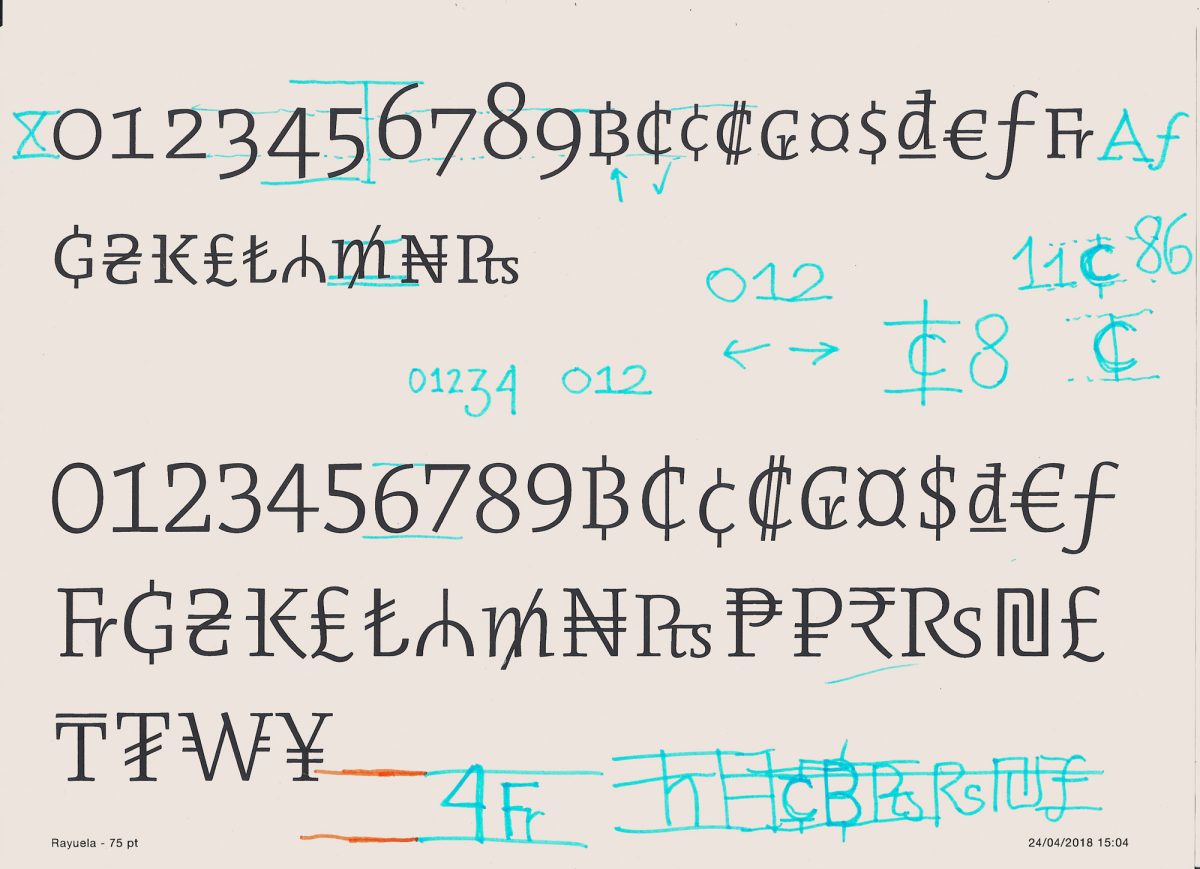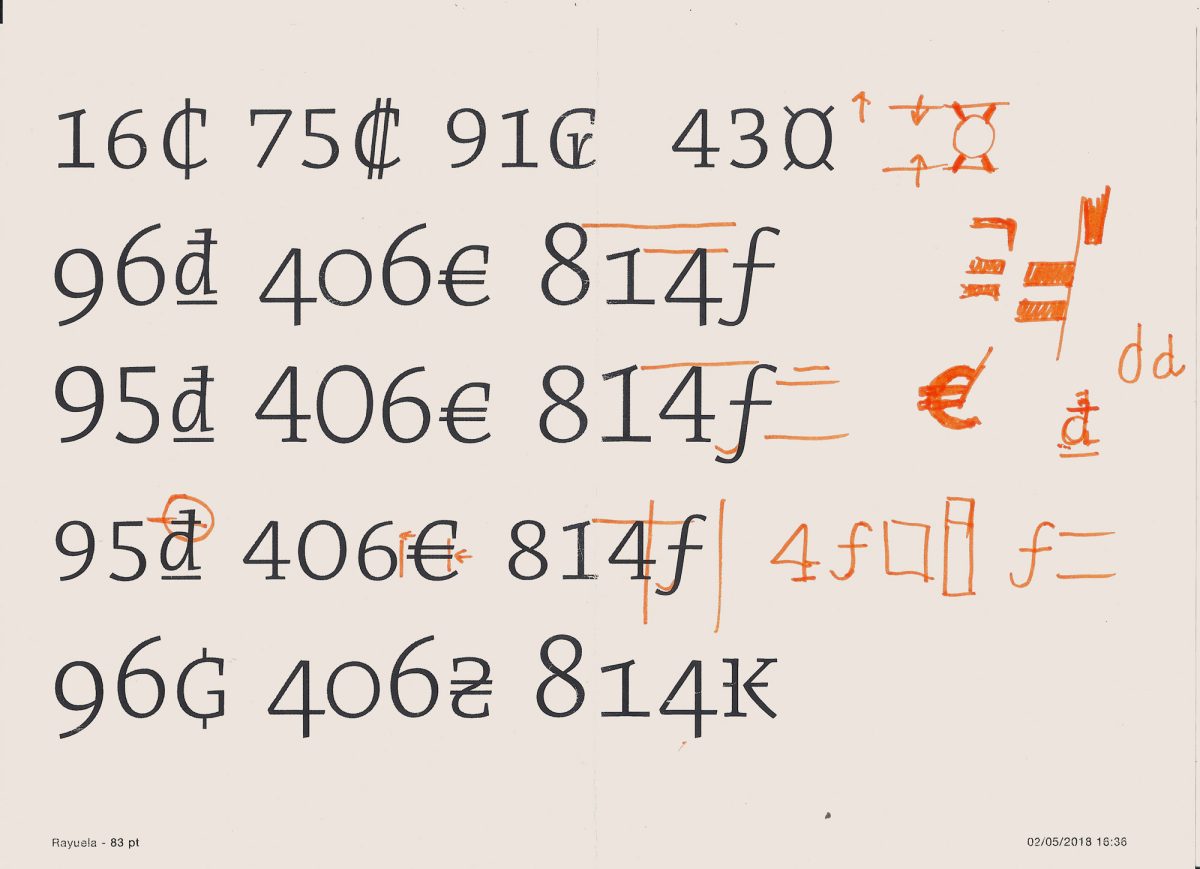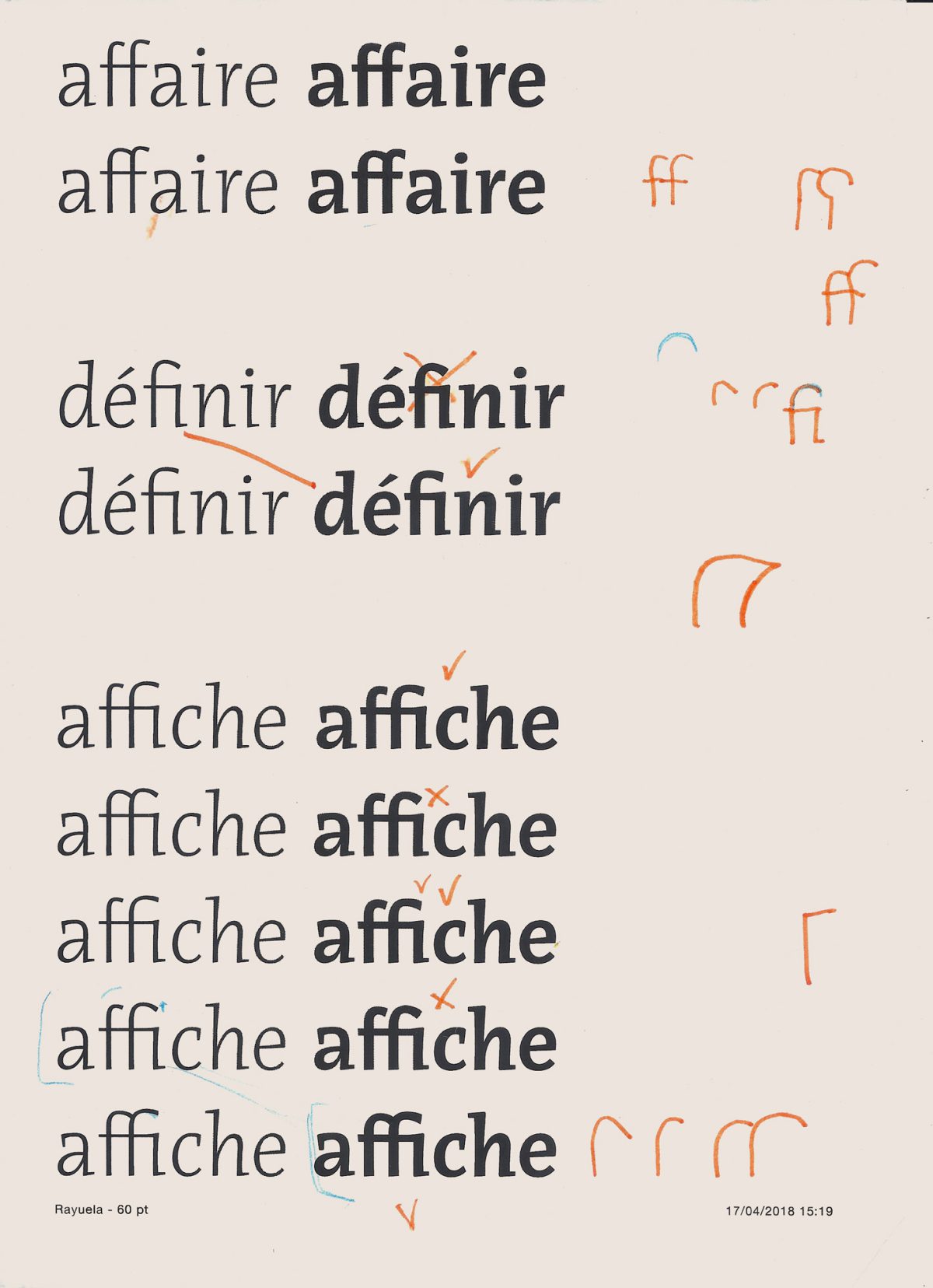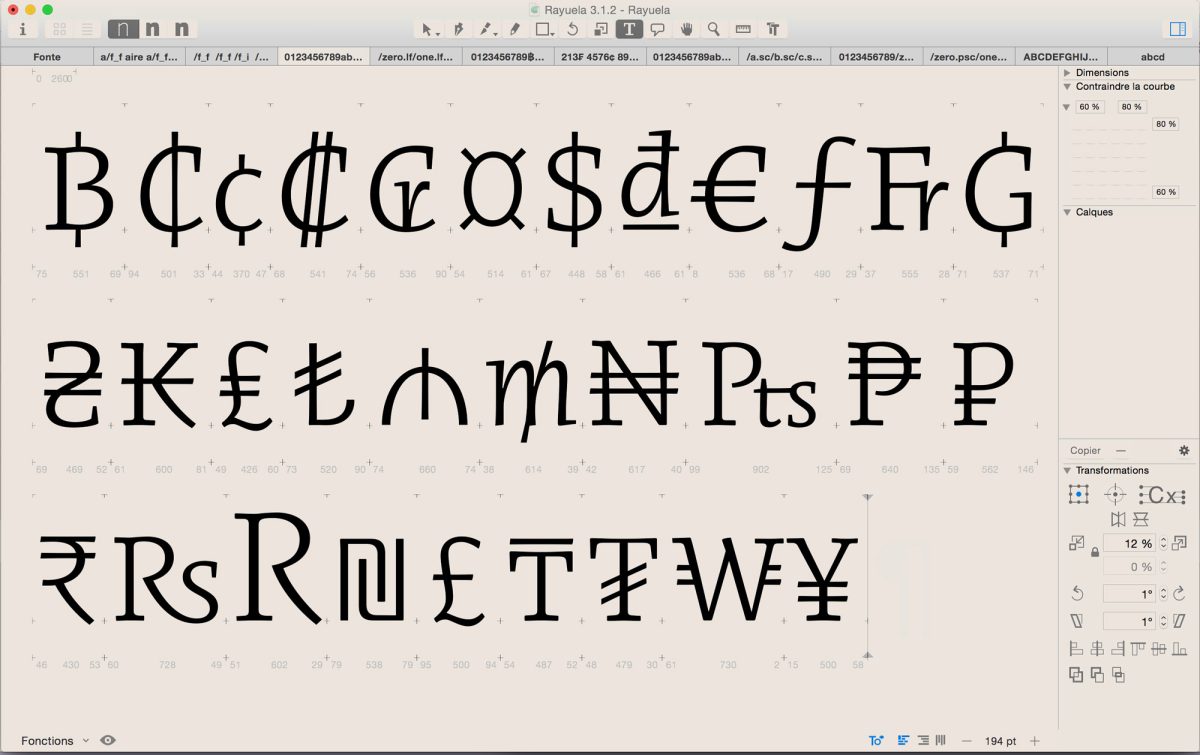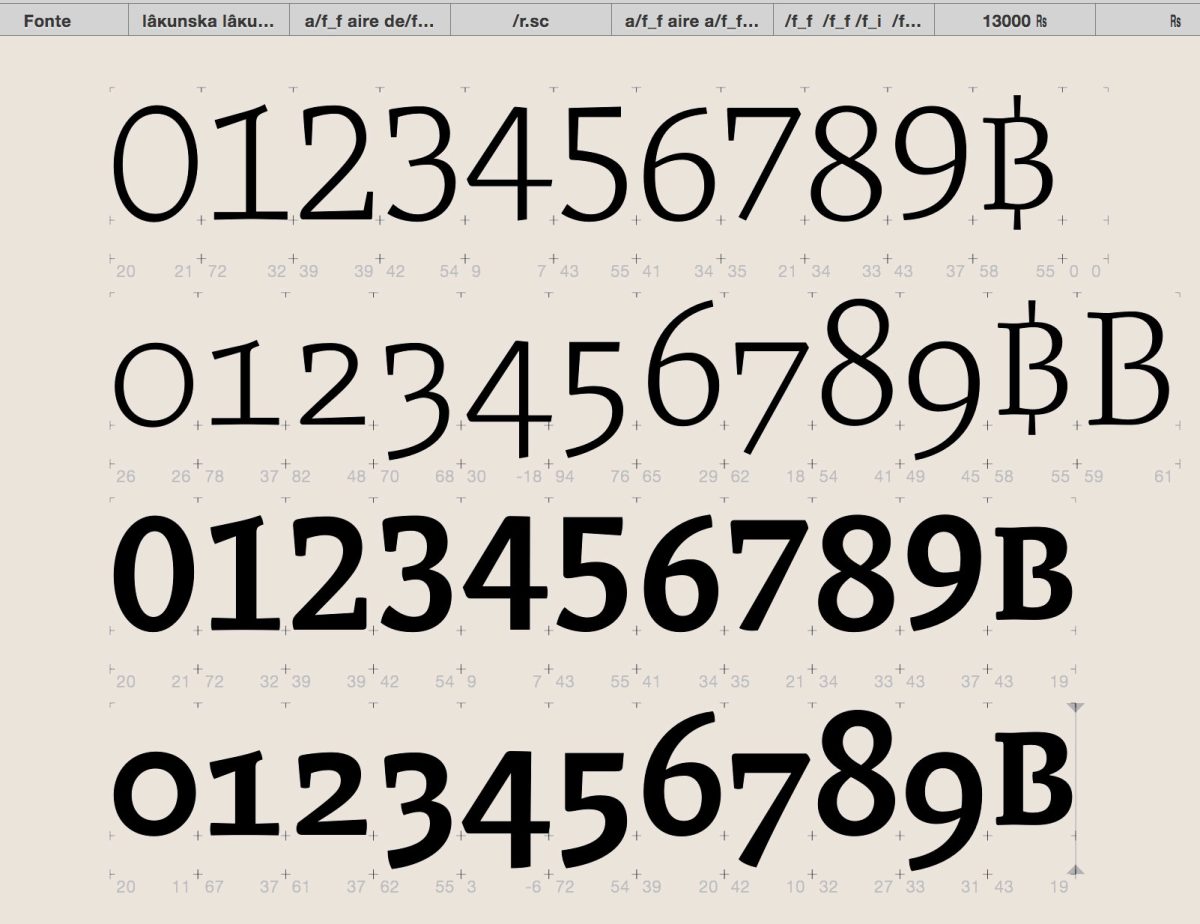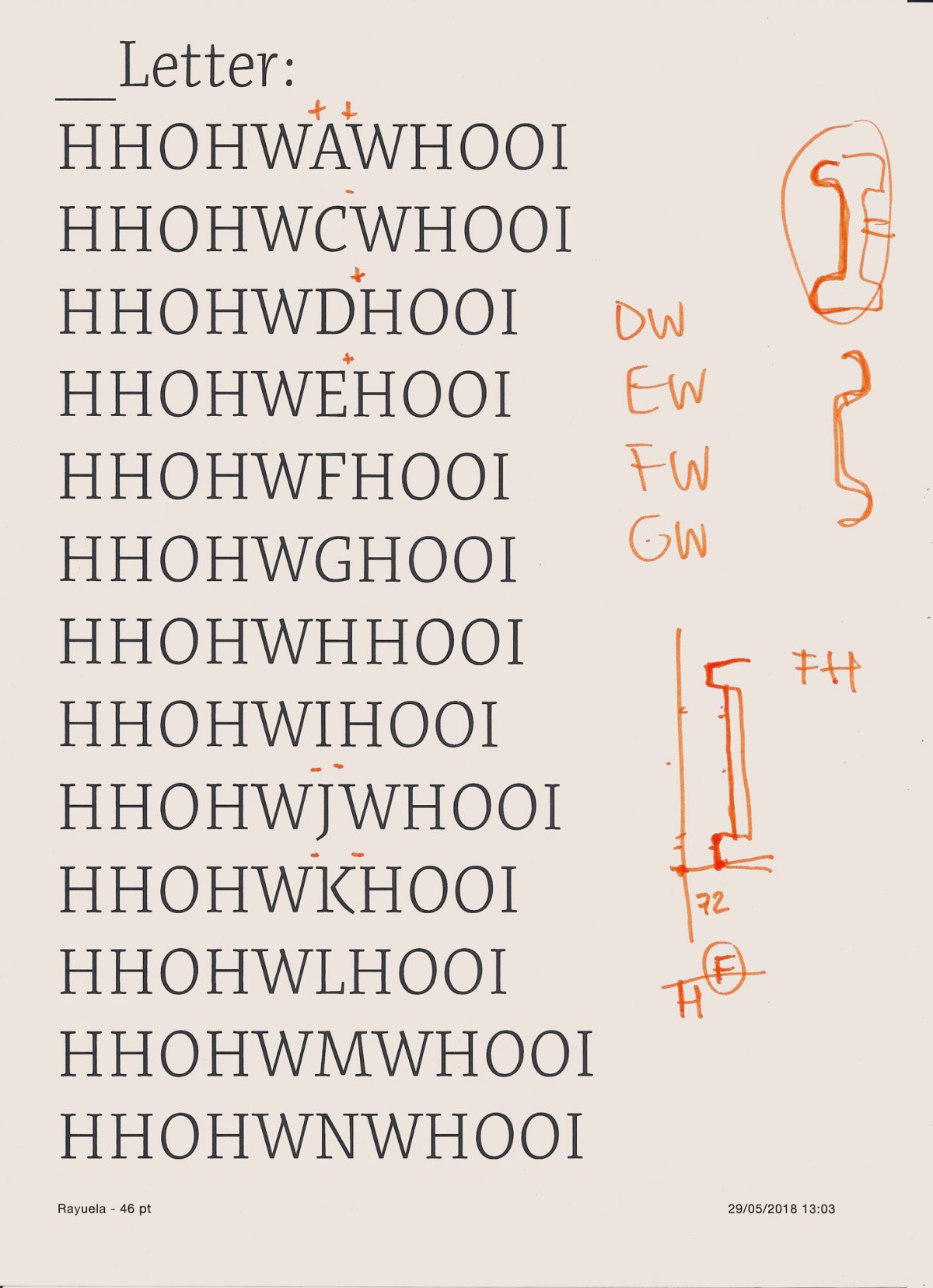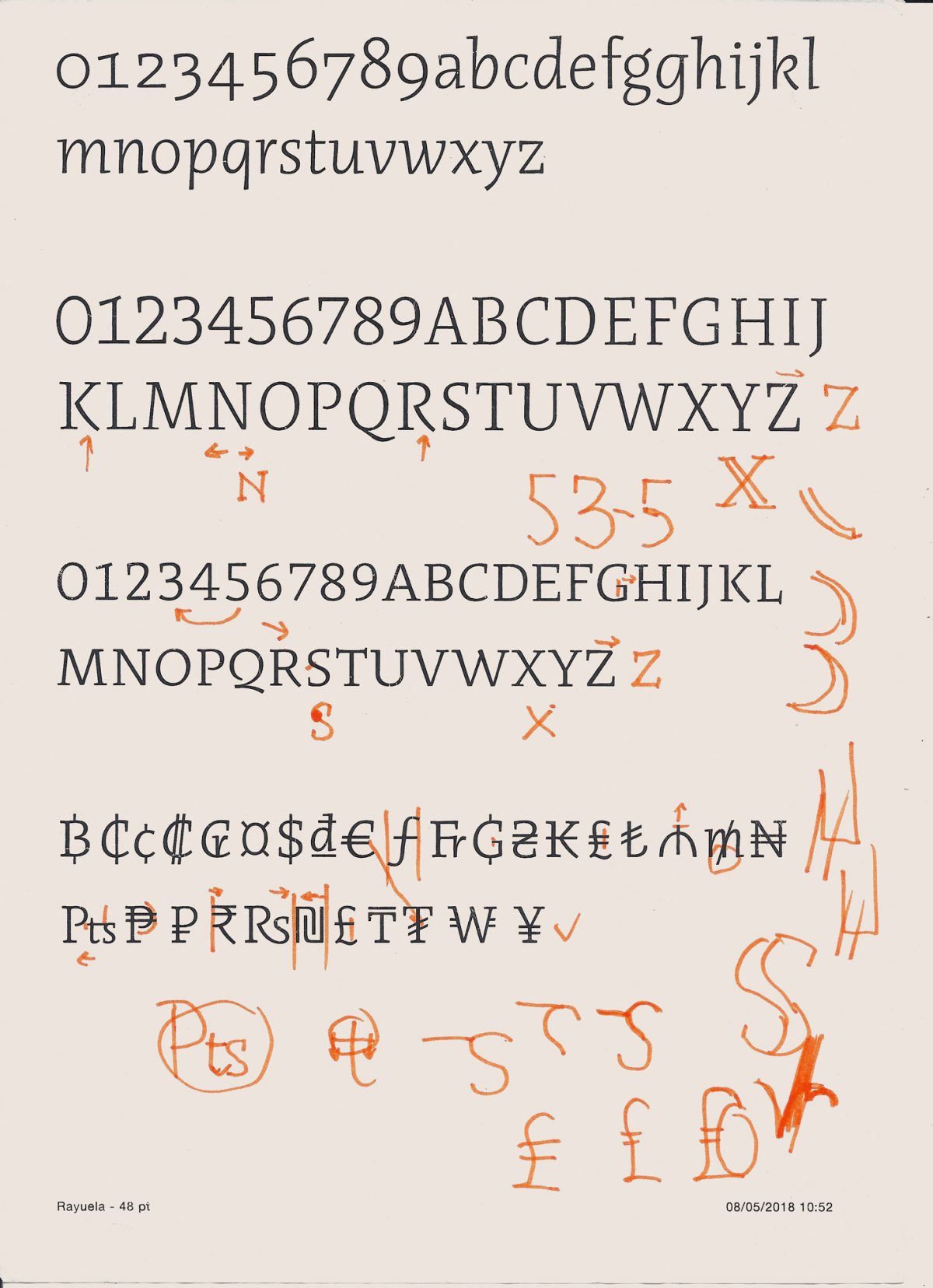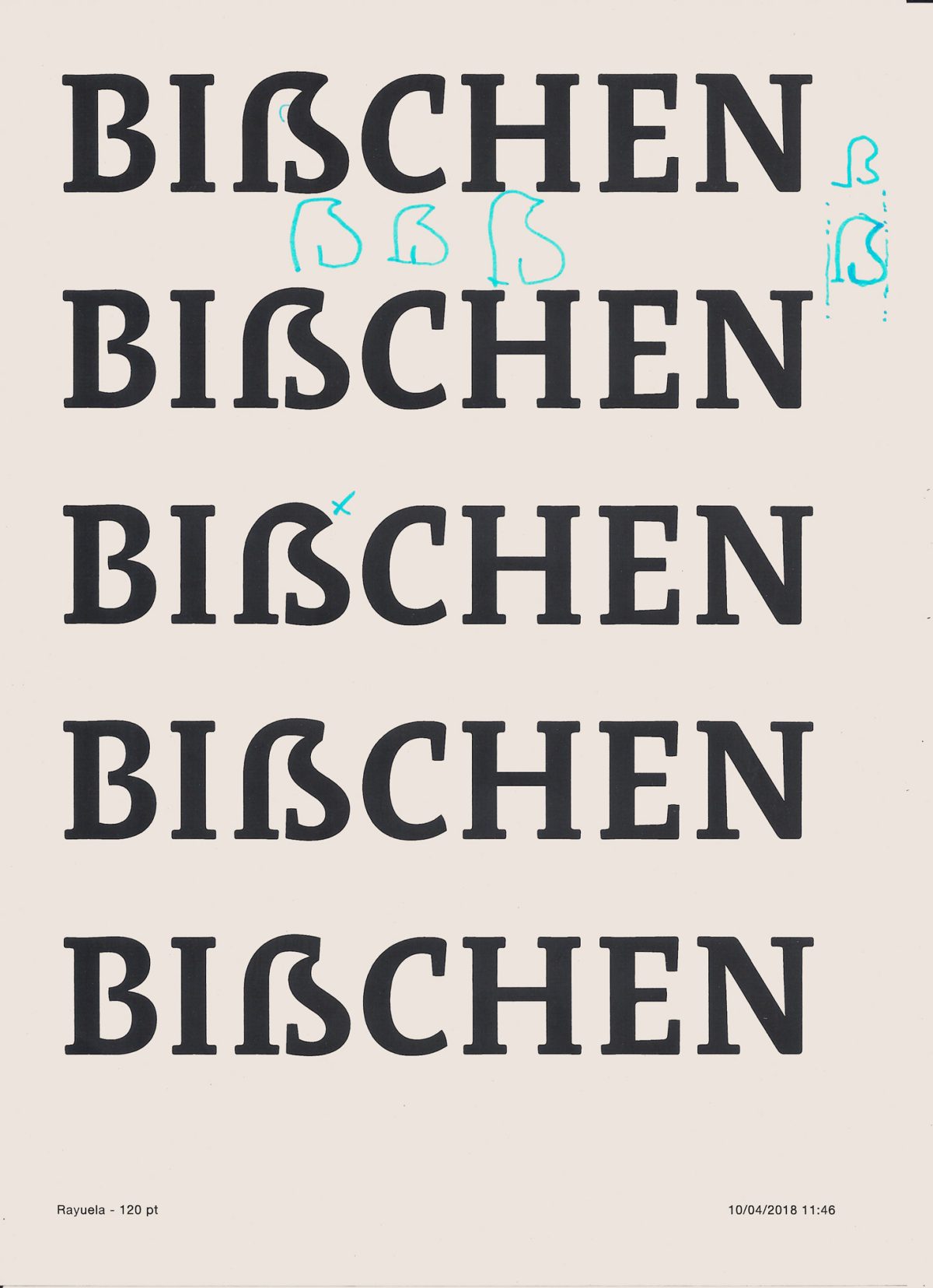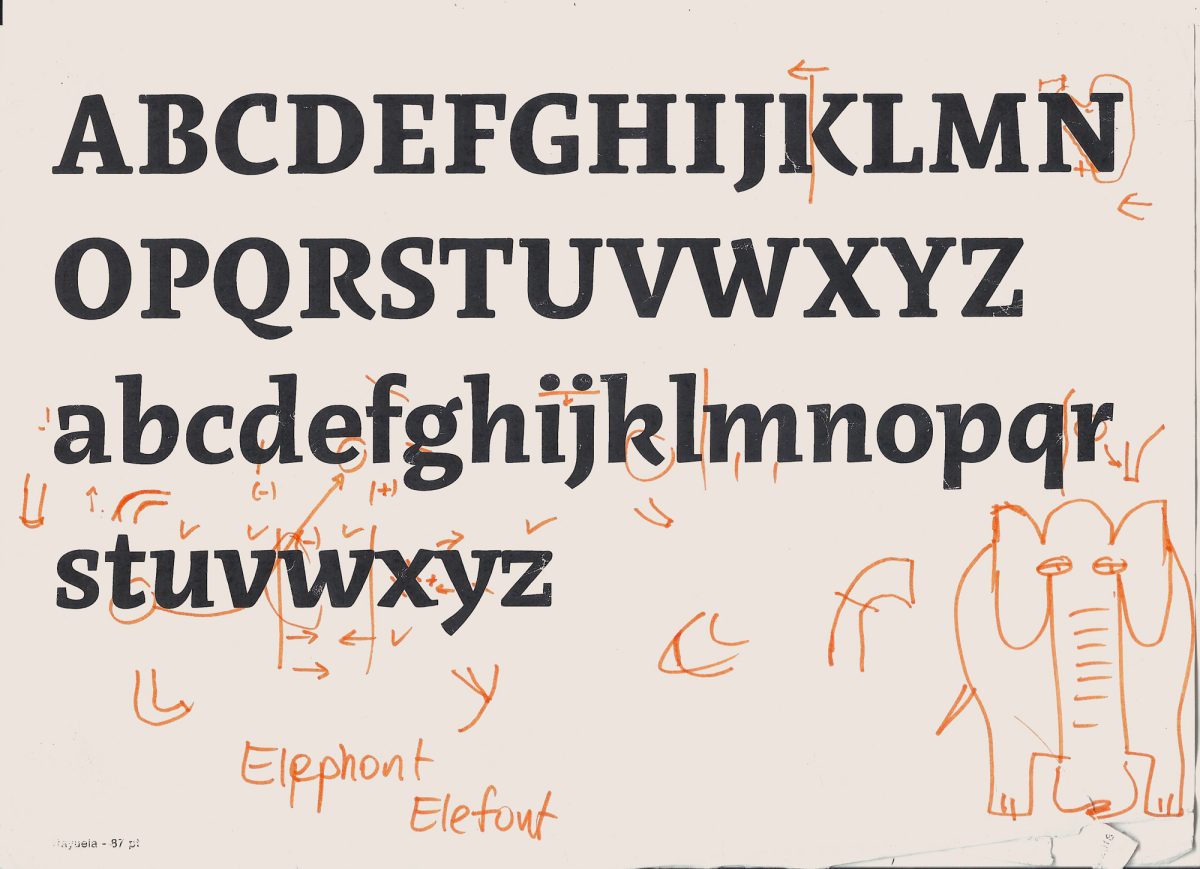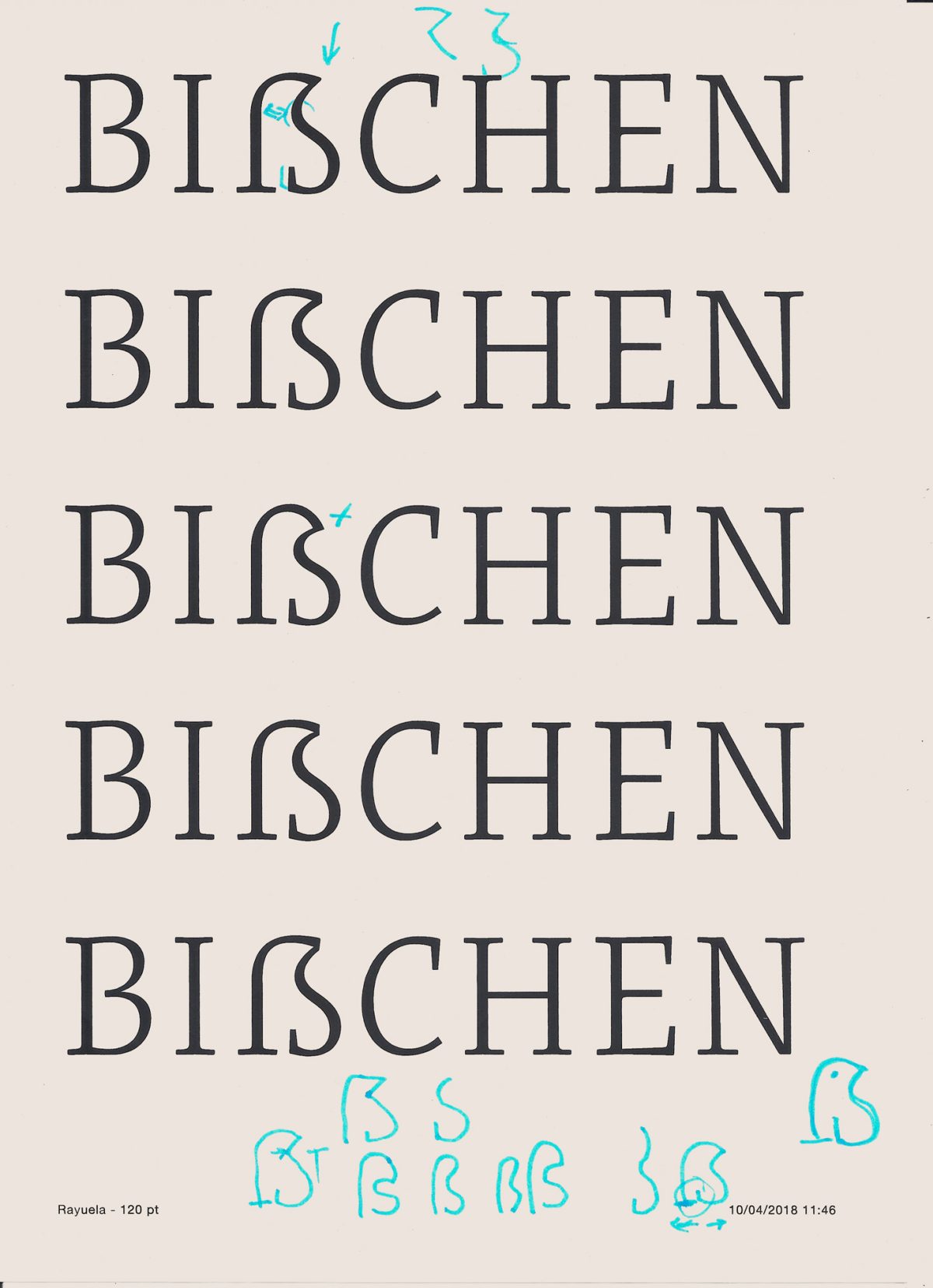
Conversations with Thomas Bouillet about his internship at PampaType
This year, from March up to June 2018, Alejandro Lo Celso and Guido Ferreyra came to work at my studio AlfarApPress because they needed a space closer to town center to host the internship of Thomas Bouillet. All this allowed me at some point to be a privileged witness of how his work was evolving. Seeing with a certain closeness what the fine work done by typographers today is, and especially, what they carry out passionately in PampaType.
The images in this article are printed proofs done by Thomas Bouillet throughout his internship at PampaType. They all relate with Thomas’ main task, extending the glyphs repertoire of the typeface Rayuela. Some proofs wear notes and marks that point to amendements and refinements.
Thanks to the visit of Thomas, I understood that the work they do is difficult to do, that they rather do it as a team, and that it requires a degree of coordination, concentration and persistence that is only possible in long hours of coexistence. In addition to dialogues around typography, we exchanged mates and delicious coffees which Thomas personally used to prepare with great affection.
In his book Detail in typography Jost Hochuli states that ‘our letters have grown slowly’ (2008), referring to a clearly long process through the centuries. Talking with Thomas and being close to the PampaType typographers has made this prayer acquire a particular dimension, which places my attention on the singularity of the complex and permanently revised relationship among the letters, the space between them, the word, the textlines, and its distances.
AP: Thomas, first of all I’d like to tell you that I really enjoyed meeting you and seeing you working every day during these four months, partially sharing our daily spaces. I would like to know how your typographical training was before PampaType.
TB: I started my studies at Estienne in DMA Typographism (diploma of Métiers d’Art) where I could understand the basic concepts of type design with Franck Jalleau and Michel Derre. At that time I did not understand the purpose of the creation of fonts and I found that this discipline required a lot of time and that is also repetitive. This put into question the pleasure I felt when I drew letterforms. Coming from the world of graffiti, I used to focus only on the formal aspect of the text while not taking into account the need for uniformity from one letter to another.
After obtaining my DMA, I went to the ESAD in Amiens in graphic design. Surprisingly, it was at this school where I could really unlock my potential as a letter designer. This discipline became a real passion for me. I think it took me a while to understand what I had learned from Estienne. So I got my DNAP in Amiens without being able to continue the Master there. I think my profile was not adequate with the training they propose. My teacher in typography took me to an internship in his graphic design studio and suggested that I could combine travel and professional experiences. This idea really pleased me and I made sure to get internships in different parts of the world.
I did an internship with Xavier Dupré in Cambodia. And now I developed this internship for four months in Córdoba, Argentina, in PampaType. The idea has been to meet and work with designers of different types of visions and, later, to forge my own conception of the discipline.
How did you know about this possibility of doing an internship with Alejandro Lo Celso?
I met PampaType’s work two years ago on the Internet and I always liked their approach to letters. I try to conceive timeless characters that do not forget the history and the sensitivity letters could have before our nowadays’ digital vectors, and therefore, letters whcih do not follow a perishable trend. In that sense, I found the work of PampaType very interesting. So I sent my CV and my portfolio, and later we could agree on the work modalities and the tasks that I could develop during the internship.
What were those tasks finally? I know you were working on an extension of Rayuela: What procedures did you find most challenging? How do you feel modifying something that was created by another typographer?
The tasks that I carried in PampaType were more of a technical nature. On the one hand, I learned to make two weights of the same family compatible to make an interpolation. This exercise was very significant to me. The number of nodes, the direction as well as the starting point of a vector must be identical from one master to the other within every glyph. Sometimes, when a glyph design is not the same in the light version than in the heavy, for legibility or even design reasons, it becomes necessary to make a precise optical correction in the interpolation.
I could also draw monetary signs, special ligatures such as ct and st, and even rectify or adjust some Rayuela characters drawn years ago in PampaType, regarding the shape, style, sensitivity, details. It is a unique opportunity because it is never easy to work on a design that is not your own. It is necessary to observe every detail and then use forms of other signs, combine them with other forms, especially in constant iteration with the designer (Alejandro Lo Celso) who points out the design problems. The learning process that this exercise allows for is very interesting: it makes you consider the curves, the counterforms, to move the nodes and the handlers of one or two units, quickly improving the typographic precision.